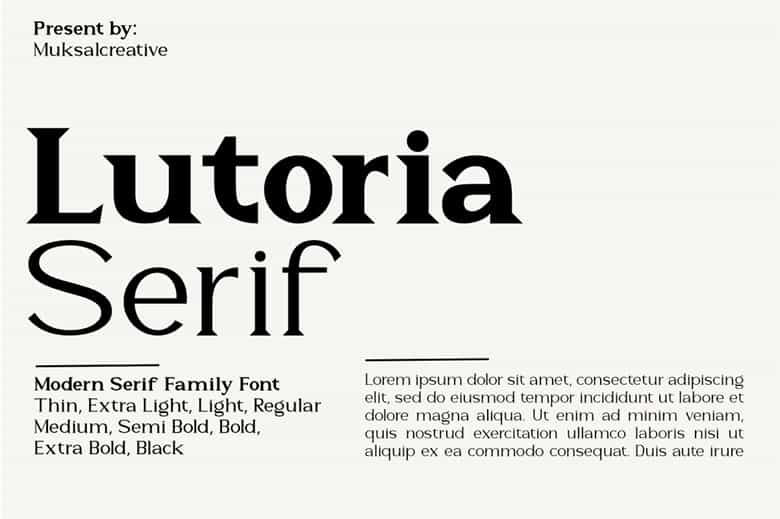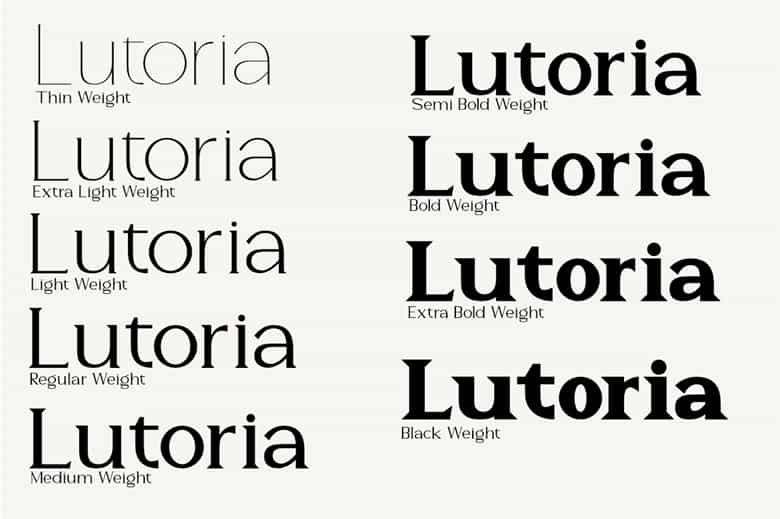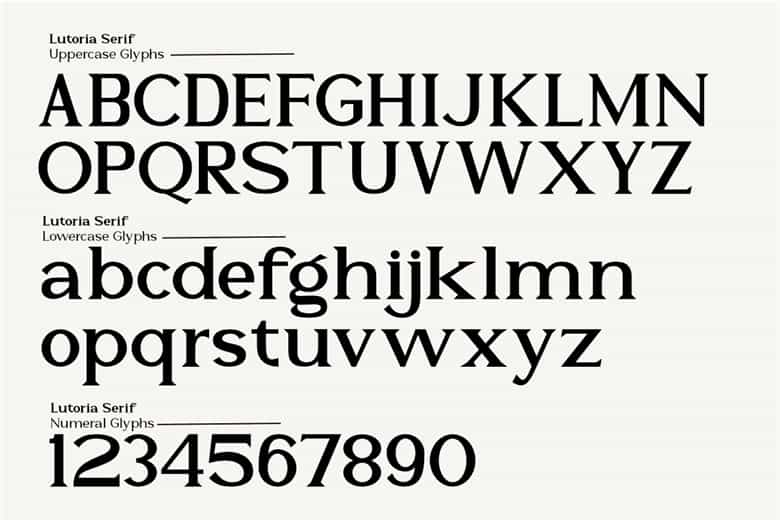
Discover Lutoria Serif Font, part of the Serif collection—a versatile and unique font perfect for adding a personal touch to your projects. Download it for free and enjoy crafting designs with style, from invitations to social media posts. This font is available exclusively for personal use, giving you the freedom to create without limits. Unlock your creativity with Lutoria Serif Font today!
Lutoria Serif is a new modern serif typeface designed in such a way that it can be used for various purposes. Lutoria Serif has 9 styles ranging from the thin to the black, making it versatile for use in different designs; be it for editorial designs, branding, and typography among others.